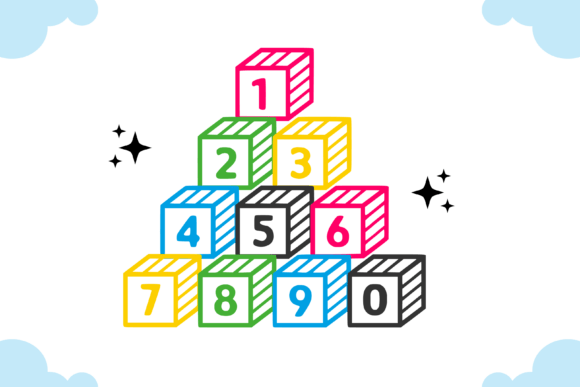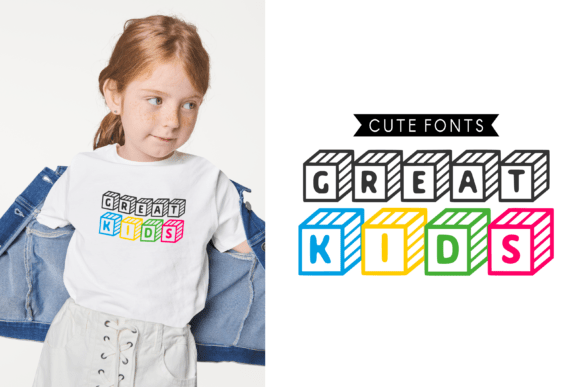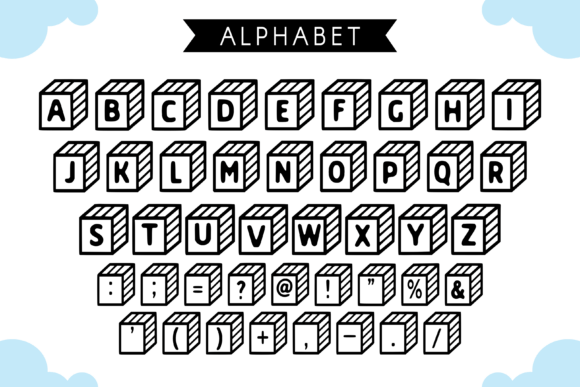
Box Style Font
Discover the “Box Style” font – a dynamic cube-shaped lettering element, marrying uniqueness and reliability in each character. Ideal for invigorating your creative pursuits, it’s a striking pick to breathe life into your print projects on t-shirts, mugs, bags, and logos. Take digital innovation a notch higher as you bring flair to your greeting cards and other digital crafts with the crisp, geometric allure of the “Box Style” font.